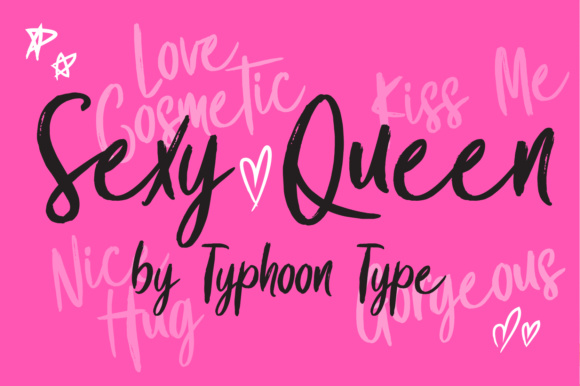
Sexy Queen Font
About Sexy Queen Font
Sexy Queen is a dry brush stroke font with tons of texture and style! This font is a great way to brand your beauty and fashion designs, and can add a relaxed yet cool feel to your work.